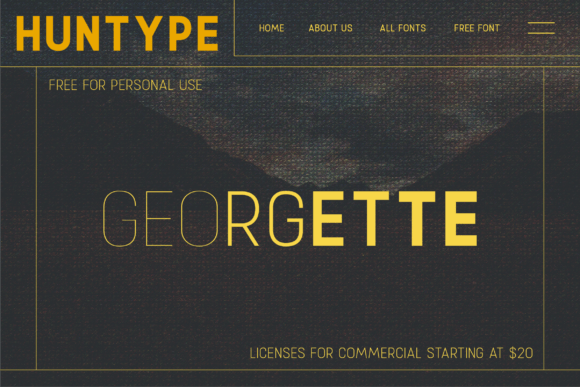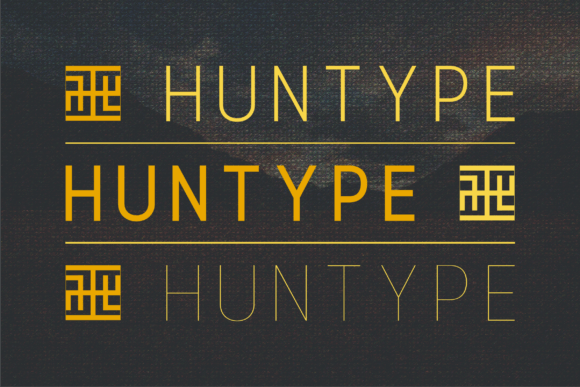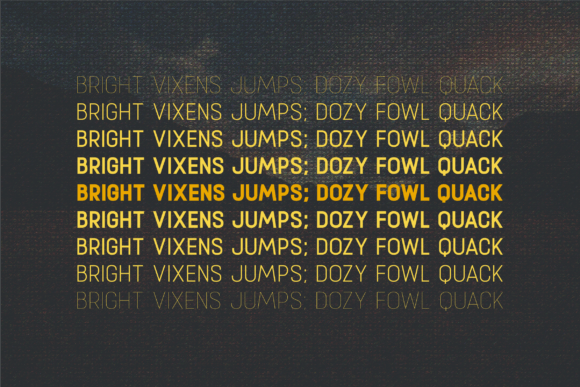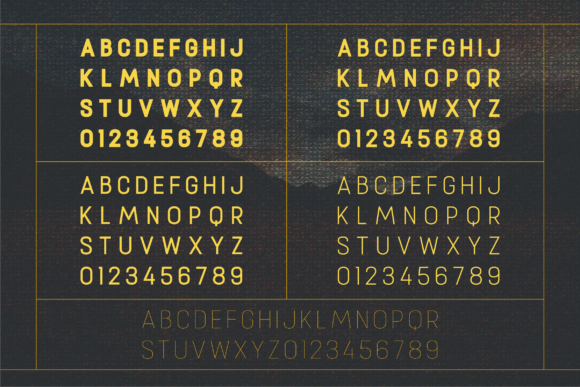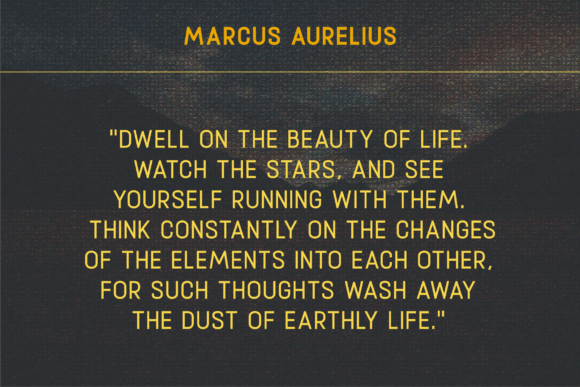
I still remember the countless hours I spent searching for the ideal font for a client’s branding project. The client wanted a font that exuded elegance, modernity, and versatility, but I was struggling to find one that checked all the boxes. That’s when I stumbled upon the Georgette Sans Serif Font Family, and it changed the game. In this article, I’ll share my experience with this stunning font family and provide a comprehensive guide on how to make the most of it.
Introducing Georgette Sans Serif Font Family
The Georgette Sans Serif Font Family is a meticulously crafted font family that epitomizes elegance, modernity, and versatility. With its five distinct weights—THIN, LIGHT, REGULAR, BOLD, and BLACK—the Georgette Font Family offers a wide range of creative possibilities, making it the perfect choice for designers and content creators. Whether you’re aiming for a subtle and delicate touch or a bold and impactful statement, this font family’s seamless blend of sophistication and contemporary style ensures your projects will shine with distinction.
- ✨ Elegant and modern design that works well for both digital and print projects
- ✅ Highly versatile with five distinct weights to suit various design needs
- ✅️ Extensive character set, including OpenType features, glyphs, and stylistic alternates
- ✅️ Perfect for branding, advertising, and editorial design
While the Georgette Font Family is exceptional, there are a few minor quirks to be aware of:
- ⚠️ Some users may find the font’s elegance and sophistication limiting for certain design projects that require a more playful or casual tone.
- 🤔 The font’s extensive features and weights may require a learning curve for those new to OpenType fonts and glyphs.
The Designer Inspiration Behind Georgette Font Family
The Georgette Font Family was designed with the goal of creating a font that embodies elegance, modernity, and versatility. The designer aimed to craft a font that would be perfect for a wide range of design projects, from branding and advertising to editorial and digital design. The result is a font family that is both sophisticated and contemporary, making it an excellent choice for designers and content creators.
Q: What is the Georgette Font Family?
A: The Georgette Font Family is a sans-serif font family designed to provide a wide range of creative possibilities for designers and content creators. It features five distinct weights and an extensive character set, including OpenType features, glyphs, and stylistic alternates.
Q: What design projects is the Georgette Font Family suitable for?
A: The Georgette Font Family is suitable for a wide range of design projects, including branding, advertising, editorial design, and digital design.